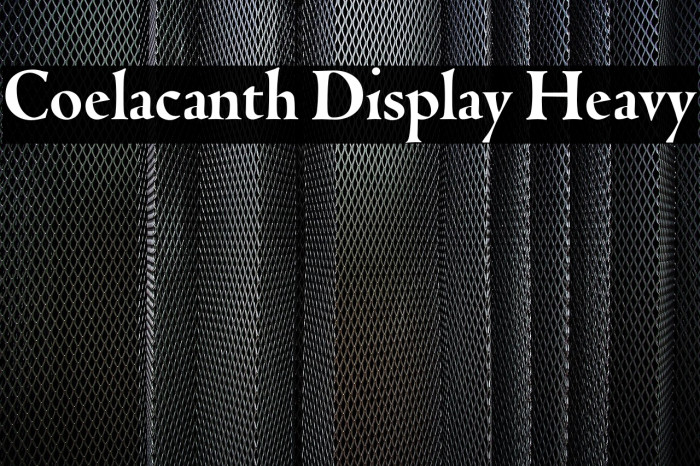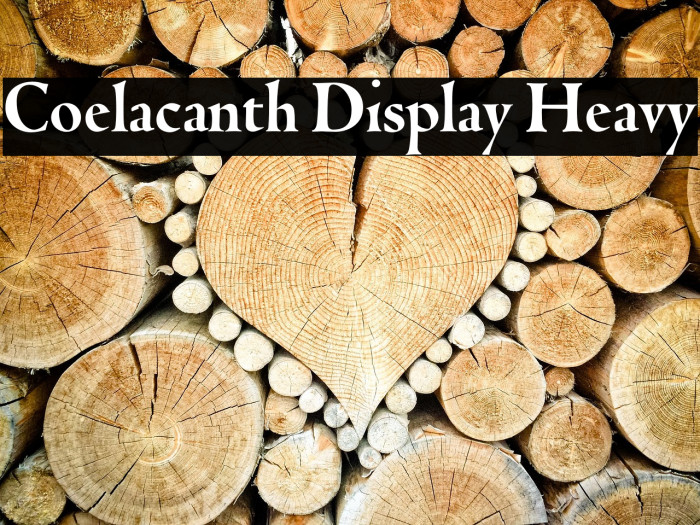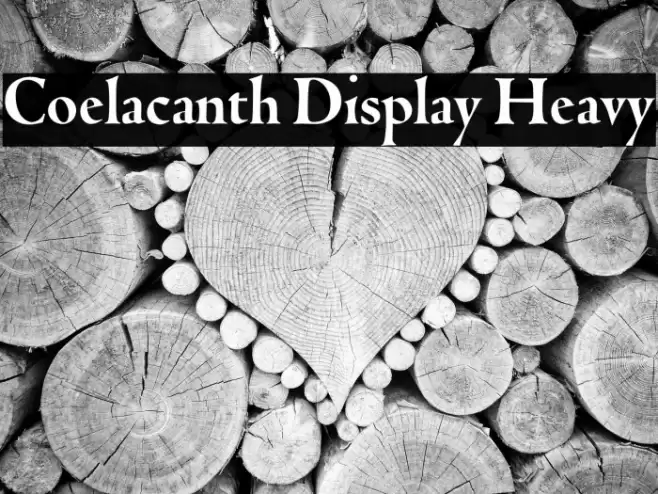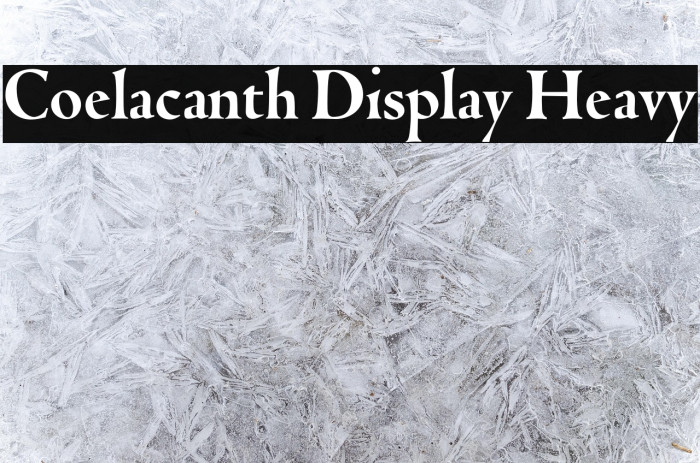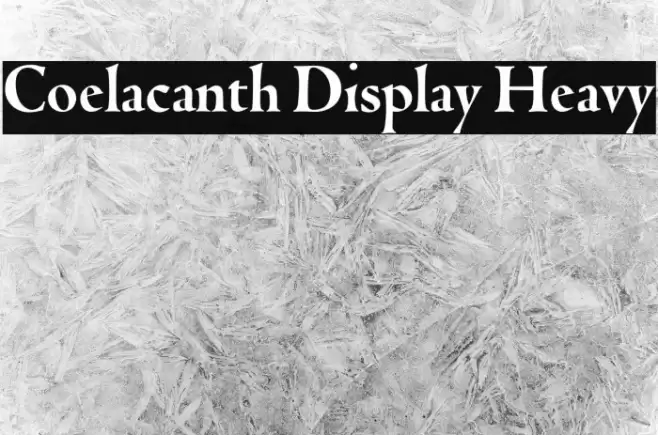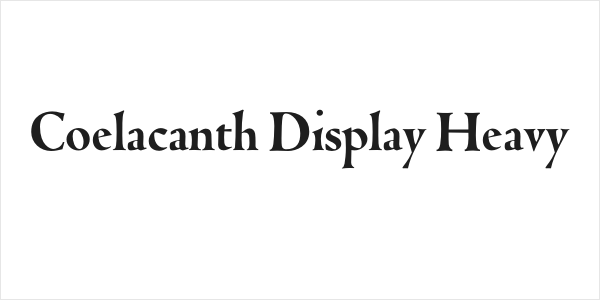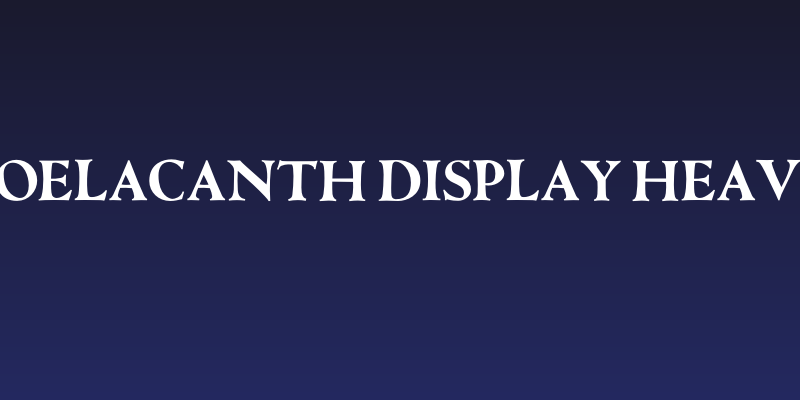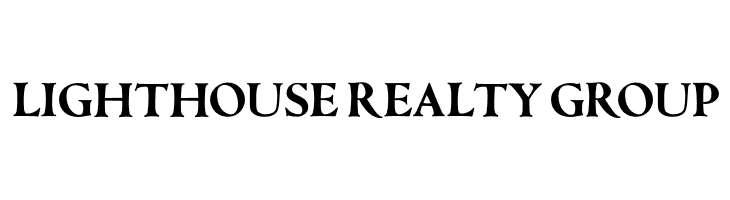
Coelacanth Display Heavy Font
Coelacanth Display Heavy Description
This font exhibits a bold and dramatic style with high contrast between thick and thin strokes, giving it a striking appearance. The serifs are pronounced and angular, adding a sense of elegance and sophistication. The uppercase letters are particularly commanding, with sharp edges and a slightly condensed form. The lowercase letters maintain a consistent style, with unique curves and angles that enhance readability. The numerals are distinct and well-balanced, matching the overall aesthetic of the font. Special characters are crafted with the same attention to detail, ensuring a cohesive look across all glyphs.
| Use Case | Headlines, Logos, Editorial design |
| Proposed Projects | Ideal for use in headlines, posters, branding, and editorial design where a strong visual impact is desired. |